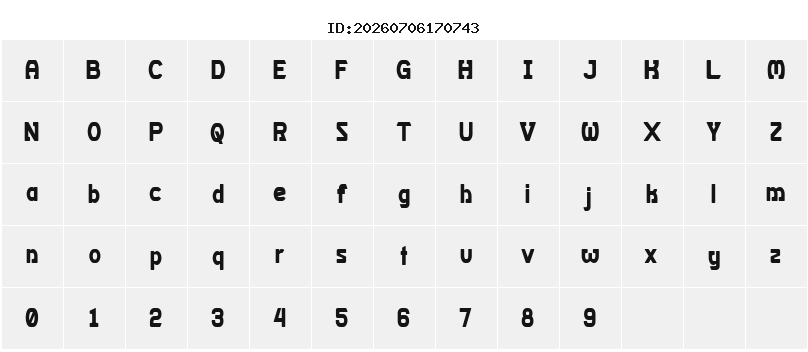
• Font Name: Dexedrine
• Full Font Name: Dexedrine
• Designer: Graham Meade
Dexedrine.ttf is a modern, elegant sans-serif font designed for ultimate readability and visual harmony. Perfect for branding, headlines, web design, and print materials.